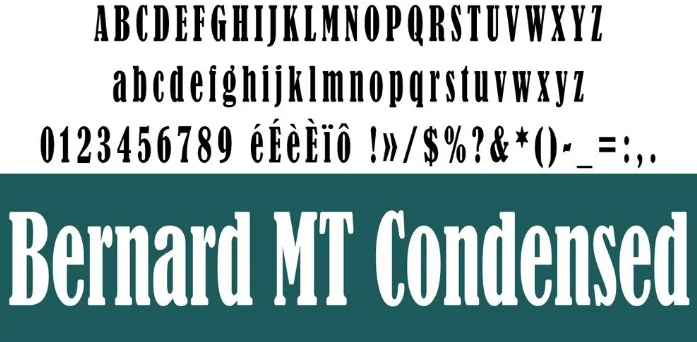
About Bernard MT Condensed Font
Bernard MT Condensed is a distinctive serif typeface known for its elegant, narrow letterforms and classic Art Deco influences. Its tall, condensed structure makes it ideal for headlines, posters, logos, and display typography where a stylish, sophisticated look is needed. The font combines readability with a strong visual presence, giving designs a refined and professional appearance. Bernard MT Condensed works well across print and digital media, making it a versatile choice for creative and corporate applications.